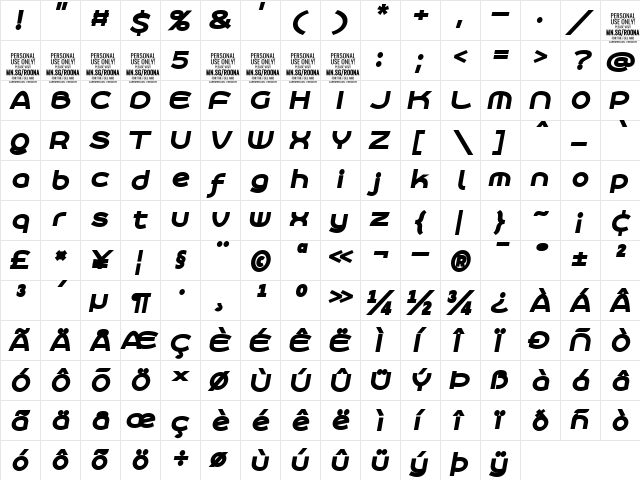
Roona Sans Black PERSONAL Italic
Design Context for Roona Sans Black PERSONAL Typeface
Roona Sans Black PERSONAL offers clean, dependable letterforms without strong stylistic allegiance, making it a practical choice for designers who need flexibility. The dynamic lean of this cut emphasises speed and emphasis in any layout.
Pro Tip: Try Roona Sans Black PERSONAL for annotation and caption copy alongside an upright companion — the contrast in angle creates a dynamic but ordered typographic system.